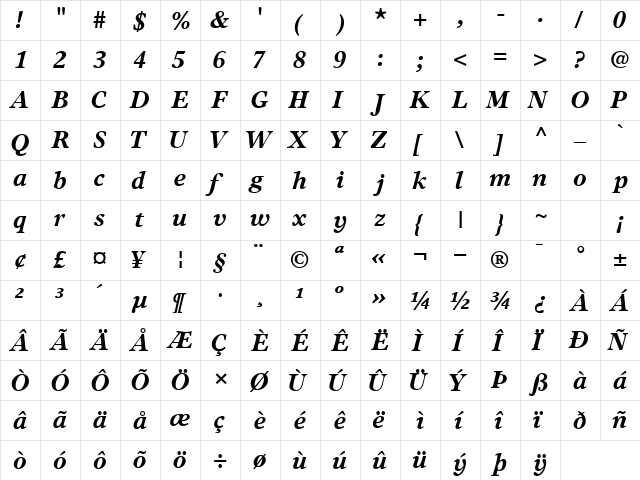
GrecoEuropaSSK BoldItalic
Design Context for GrecoEuropaSSK Typeface
GrecoEuropaSSK is a composed and adaptable typeface that performs quietly and consistently across a wide range of design contexts. The slanted form adds forward momentum and visual energy. Its bold stroke weight gives it real presence on the page.
Pro Tip: Use GrecoEuropaSSK for emphasis, pull quotes, and subheadings where its slanted energy can add rhythm to the layout.